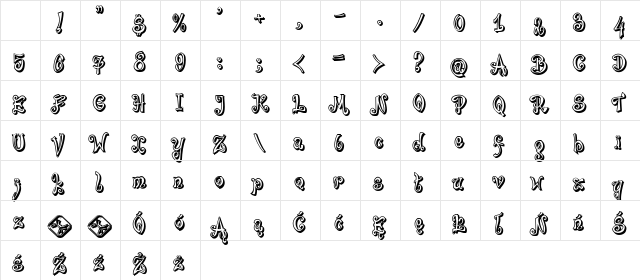
Complete Bajareczka Shadow Regular glyph index. Displaying only characters natively supported by Bajareczka Shadow Regular font.
Bajareczka Shadow is built around its visual character rather than neutral utility - its distinctive forms are designed to make an impression at display sizes.
Font Pairing: Pair with a clean neutral sans-serif for body copy to let Bajareczka Shadow's character lead without overwhelming the composition.
Pro Tip: Use Bajareczka Shadow exclusively at display sizes - it was designed to be seen, not read at length. Let a neutral companion handle body copy.